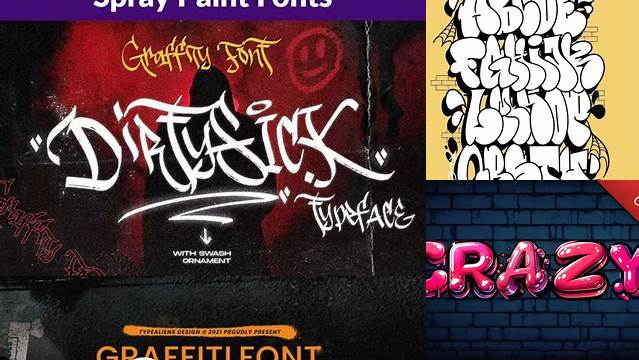
Best Free Graffiti Font Generators
Hey everyone, are you ready to dive into the awesome world of graffiti art? If you're anything like me, you've probably spent hours admiring those vibrant murals and intricate lettering that adorn our cities. And if you've ever thought, "Man, I wish I could create something like that!" then you're in the right place. Today, we're going to explore the best free graffiti font generators out there. These tools are perfect for anyone wanting to experiment with graffiti styles, whether you're a seasoned artist or a complete newbie. Let's get started and find the perfect font to express yourself!
Why Use a Graffiti Font Generator?
Okay, so why bother with a graffiti font generator when you can just, you know, draw your own letters? Well, my friends, using a generator can be a total game-changer. First off, it's a fantastic way to kickstart your creativity. Maybe you have a cool phrase or name you want to see in a graffiti style, but you're not quite confident in your freehand skills yet. A generator provides a quick and easy way to visualize your ideas, allowing you to experiment with different fonts and styles without the pressure of starting from scratch. Plus, they're super helpful for understanding the fundamentals of graffiti lettering. By seeing how different fonts are constructed, you can start to develop your own unique style and improve your sketching abilities. Think of it as a stepping stone – a way to learn and grow your artistic talents.
Another great reason to use a graffiti font generator is the sheer variety they offer. You can find generators that specialize in everything from classic bubble letters to wildstyle fonts, complete with arrows, drips, and all sorts of cool effects. This allows you to quickly explore a wide range of styles and find the perfect font for your project. Whether you're designing a logo, creating a social media post, or just wanting to create a cool design for your friends, a generator can provide the inspiration you need. It's like having a whole library of graffiti fonts at your fingertips, ready to be customized and tweaked to fit your vision. The best part? Most of these generators are completely free to use! This makes them an accessible resource for anyone who wants to get involved with graffiti art without spending any money.
And let's not forget about the convenience factor. Let's be real, not all of us have the time or the skills to master graffiti lettering overnight. Generators are quick, easy to use, and can save you a ton of time. You simply type in your text, select your desired font, and voila – you have a ready-to-go graffiti design. This is especially useful if you need to create something quickly or if you're working on a project with tight deadlines. You can generate multiple versions of your text in a matter of minutes, allowing you to quickly experiment with different looks and find the one that best suits your needs. In short, graffiti font generators are a fantastic resource for artists of all levels, providing a fun, accessible, and convenient way to explore the world of graffiti art. Now, let's get into some of the best generators out there.
Top Free Graffiti Font Generators You Need to Know
Alright, guys, let's get down to the nitty-gritty and explore some of the top free graffiti font generators that you can start using right now. I've rounded up a few of my favorites, each with its unique features and styles. Trust me, you'll be creating awesome designs in no time!
1. FontGet
FontGet is a great place to start your graffiti journey. It offers a wide selection of free graffiti fonts that you can download and use in your projects. The site is easy to navigate, making it simple to find the perfect font for your needs. You can browse by style, popularity, or even preview your text before downloading. This allows you to see exactly how your text will look in the font, which is a huge time-saver. FontGet also provides information about the license of each font, ensuring that you can use them legally in your projects. Beyond fonts, FontGet has other great content. For example, FontGet lets you explore different fonts in different styles, like cursive fonts and retro fonts. The website is clean and simple to browse around. The number of fonts available on this platform make this one of the best platforms.
One of the best things about FontGet is that it caters to both casual users and serious designers. Whether you're just playing around or working on a professional project, you'll find fonts that fit your needs. The site also keeps up-to-date with the latest trends in font design, so you can be sure to find fresh and exciting options. FontGet's intuitive interface and extensive library make it a must-visit for anyone looking for free graffiti fonts. So, if you're ready to add some serious flair to your designs, head over to FontGet and start exploring the awesome world of graffiti fonts!
2. FontSpace
FontSpace is another excellent resource for finding free graffiti fonts. With a massive collection of fonts created by talented designers, you're bound to find something that sparks your creativity. The site's user-friendly interface makes it easy to search, browse, and download fonts. You can filter fonts by style, popularity, and even the designer, allowing you to quickly find what you're looking for. FontSpace also provides detailed previews of each font, so you can see exactly how it will look before you download it. It's a great way to discover new fonts and styles. The community aspect of FontSpace is amazing. You can connect with other designers, share your work, and get feedback on your projects. This fosters a sense of collaboration and creativity, making FontSpace more than just a font repository. It's a hub for artists to connect and inspire one another.
FontSpace allows you to find fonts by categories, tags, and designers. This gives a lot of flexibility to find the font styles that you are looking for. As with other platforms, FontSpace provides the licensing of each font and informs you whether it is suitable for commercial or non-commercial use. The site also has a handy font pairing tool that helps you find fonts that complement each other, which is perfect if you're working on a complex design project. For anyone who loves fonts, FontSpace is an absolute treasure trove. It's a place where you can explore, discover, and connect with other font enthusiasts. So, whether you're a designer, a blogger, or just someone who loves cool fonts, FontSpace is definitely worth checking out!
3. 1001 Fonts
1001 Fonts is a popular online platform with a vast collection of free graffiti fonts and a simple interface. It's a great starting point for anyone looking to experiment with different styles. This site boasts a wide variety of fonts, including the most common styles and unique graffiti fonts, and it's easy to find exactly what you're looking for. The site's layout is clean and easy to navigate. You can easily browse the fonts by category, name, and popularity. This makes it a breeze to find the perfect font for your project. And if you're not sure where to start, the site also features a "featured fonts" section, where you can discover some of the most popular and trending fonts. It provides a preview of each font, allowing you to see how your text will look before you download it. This is incredibly helpful for visualizing your designs and making sure you're making the right choice. Plus, the download process is quick and straightforward, so you can start using your new fonts right away.
1001 Fonts has a clean and organized layout, which makes it easy to find the fonts you need. The site also offers information about the license of each font, ensuring that you can use them legally. Another cool feature of 1001 Fonts is the font pairing tool. This tool helps you find fonts that complement each other, which is perfect for designing logos, posters, and other creative projects. 1001 Fonts also features a dedicated section for graffiti fonts, making it a convenient one-stop shop for all your graffiti font needs. Whether you're a seasoned designer or just starting, this site offers an impressive collection of fonts. It's a valuable resource for anyone who wants to create striking visuals.
4. Graffiti Font Generators with Customization Options
Some graffiti font generators take things a step further by providing customization options. These generators allow you to tweak your fonts, adding effects like 3D, shadows, and outlines. They also let you control the size, spacing, and color of your text. This level of customization opens up a world of creative possibilities, allowing you to create unique and eye-catching designs.
One of the most impressive features of these generators is their ability to add 3D effects and shadows. You can choose from various styles to create depth and dimension in your text, making it look like it's popping off the page. You can customize the color of the font, the outline, and the shadow. This allows you to create vibrant and engaging designs that stand out. You can also experiment with different color palettes and gradients to add further visual interest. The ability to control the size and spacing of your text is another key feature. You can adjust the kerning (the space between each letter) and the leading (the space between each line of text) to achieve the perfect look. The customization options don't stop there! You can also add outlines, glows, and textures to your fonts, creating a wide range of effects. Whether you're designing a logo, creating a poster, or just having fun, these generators provide a flexible and powerful way to explore graffiti art.
Tips for Using Graffiti Font Generators
Okay, guys, now that you have a bunch of amazing generators at your fingertips, let's talk about some tips for using graffiti font generators like a pro. Trust me, these little nuggets of wisdom will take your designs from good to mind-blowing!
- Experiment with Different Fonts: Don't be afraid to try out different styles. There are so many cool fonts out there, so mix and match until you find the perfect fit for your project.
- Consider Your Project: Think about the context of your design. Is it for a website, a poster, or a t-shirt? The font you choose should complement the overall look and feel.
- Play with Customization: Most generators let you tweak your fonts. Use these options to add effects like shadows, outlines, and colors to make your text pop.
- Keep it Simple: Sometimes, less is more. Avoid overcrowding your design with too many effects. Let the font speak for itself.
- Practice and Have Fun: The best way to improve your skills is to practice and experiment. Don't be afraid to try new things and have fun with it!
Conclusion: Unleash Your Creativity with Free Graffiti Font Generators
So there you have it, my friends! A guide to the best free graffiti font generators. These tools provide an excellent way to kickstart your creativity, experiment with different styles, and bring your artistic visions to life. Whether you're a seasoned artist or just starting, there's a generator out there for you.